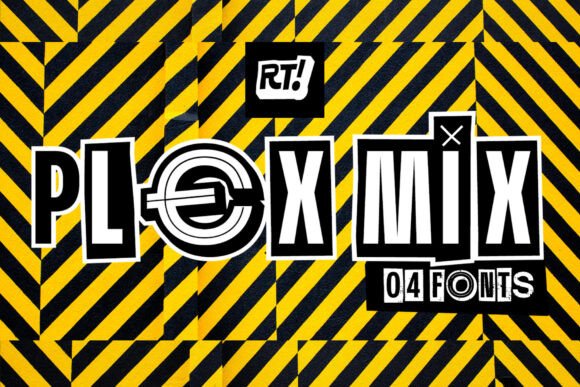
Plex Mix Font: A Bold and Rebellious Mash-up of Stencil, Geometric, and Industrial Grunge Styles
The world of typography is vast and diverse, with numerous font styles to choose from, each with its unique characteristics and uses. One such font that has gained significant attention in recent times is the Plex Mix Font. This bold, rebellious mash-up of stencil, geometric, and industrial grunge styles is perfect for creating eye-catching posters, edgy branding, album covers, and more.
What is Plex Mix Font?
Plex Mix Font is a unique and versatile typeface that combines the ruggedness of stencil fonts, the simplicity of geometric fonts, and the raw energy of industrial grunge fonts. This fusion of styles results in a bold and attention-grabbing font that is perfect for projects that require a loud and unapologetic energy.
Key Features of Plex Mix Font
- Four Font Variations: Plex Mix Font comes with four different font variations, allowing users to choose the perfect style to suit their project’s needs.
- Bold and Edgy: The font’s bold and edgy design makes it perfect for creating eye-catching posters, album covers, and branding materials.
- Versatile: Plex Mix Font can be used for a wide range of projects, from print materials to digital designs.
- Easy to Read: Despite its bold and edgy design, Plex Mix Font is easy to read, making it perfect for use in headlines, titles, and other display text.
Usage Ideas for Plex Mix Font
Plex Mix Font is a versatile typeface that can be used in a variety of projects. Here are some ideas to get you started:
- Posters and Flyers: Use Plex Mix Font to create eye-catching posters and flyers for concerts, events, and promotions.
- Album Covers: The font’s bold and edgy design makes it perfect for use in album covers and music-related branding materials.
- Branding and Logo Design: Plex Mix Font can be used to create bold and memorable branding materials, including logos, business cards, and letterheads.
- Digital Designs: The font can be used in digital designs, such as social media graphics, website headers, and more.
Benefits of Using Plex Mix Font
There are several benefits to using Plex Mix Font in your projects. Here are a few:
- Attention-Grabbing: The font’s bold and edgy design is sure to grab attention and make your project stand out.
- Versatile: Plex Mix Font can be used in a wide range of projects, from print materials to digital designs.
- Easy to Read: Despite its bold design, Plex Mix Font is easy to read, making it perfect for use in headlines, titles, and other display text.
- Unique: The font’s unique blend of stencil, geometric, and industrial grunge styles sets it apart from other fonts.
Tips for Using Plex Mix Font
Here are a few tips for using Plex Mix Font effectively in your projects:
- Use it Boldly: Plex Mix Font is designed to be used boldly, so don’t be afraid to experiment with different font sizes and styles.
- Pair it with Other Fonts: The font pairs well with other fonts, so consider using it in combination with other typefaces to create visual interest.
- Experiment with Colors: Plex Mix Font looks great in a variety of colors, so don’t be afraid to experiment with different color schemes.
Plex Mix Font is a bold, rebellious mash-up of stencil, geometric, and industrial grunge styles that is perfect for creating eye-catching posters, edgy branding, album covers, and more. With its four font variations, versatile design, and easy-to-read style, Plex Mix Font is a great choice for any project that requires a loud and unapologetic energy.